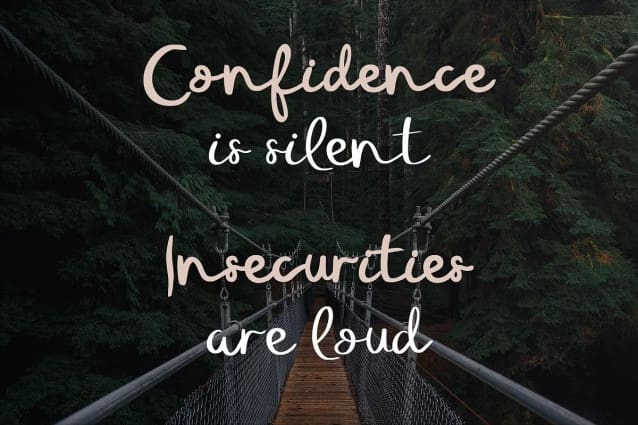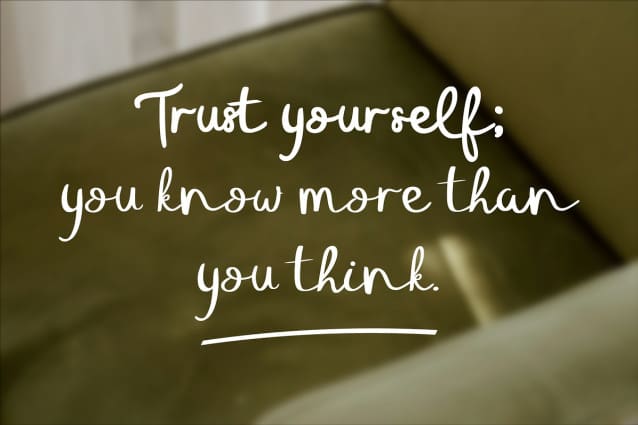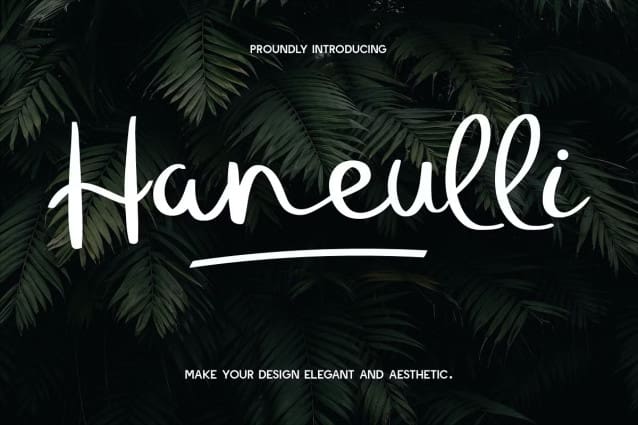
Haneulli Script Font
Haneulli Script Font is a charming handwritten font that beautifully blends a casual and elegant vibe. The smooth, flowing curves of each letter create a sense of natural rhythm, making the font feel approachable and friendly while maintaining an air of sophistication. Its versatility shines through in the balance between playful loops and clean lines, ideal for projects that need a touch of personality without sacrificing elegance. Whether used for branding, invitations, or any creative work, Haneulli’s effortless style brings a sense of warmth and refinement to your designs.